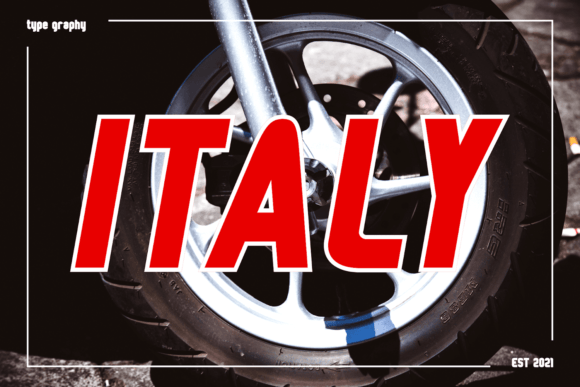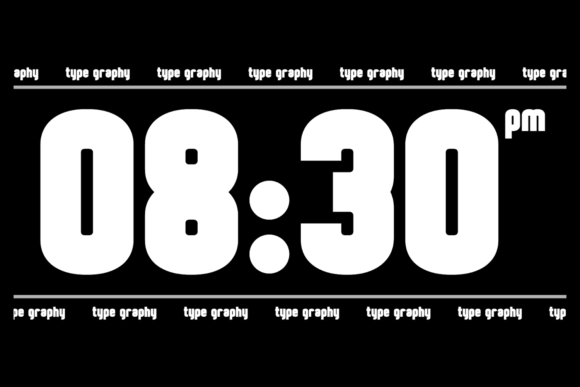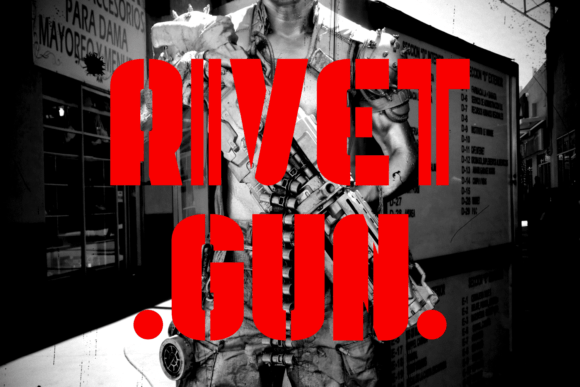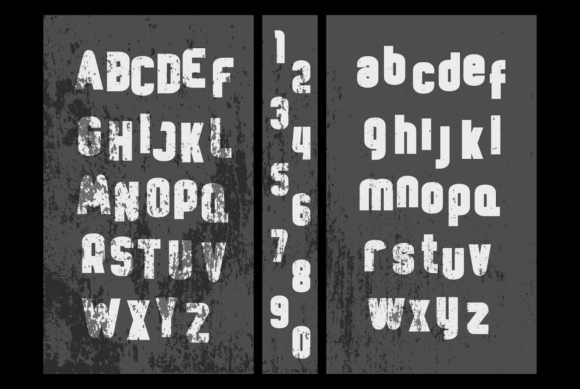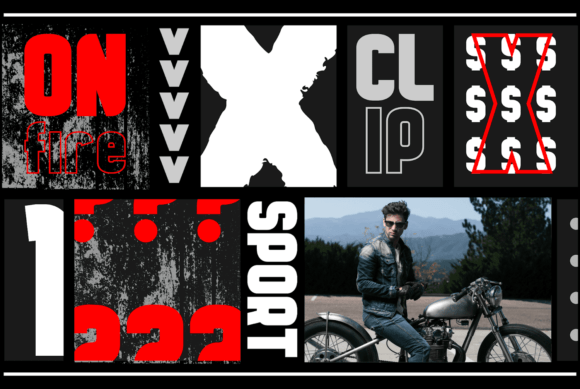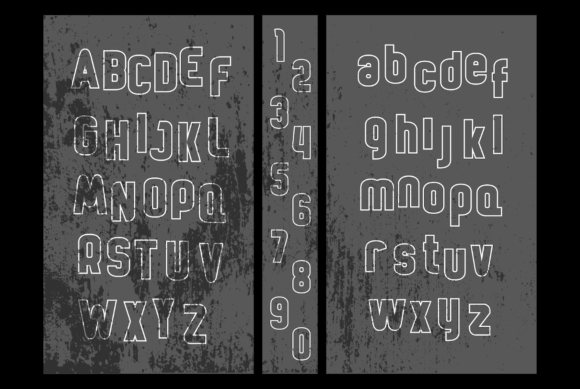
Introducing Detroit Font: The Modern and Bold Display Font
Are you looking for a font that can add a touch of modernity and boldness to your designs? Look no further than the Detroit Font. This trendy and stylish font is perfect for designers and crafters who want to elevate their creations and make them stand out from the crowd.
What is Detroit Font?
Detroit Font is a modern and bold display font that is designed to make a statement. Its sleek and stylish design makes it perfect for a variety of design projects, from logos and branding to posters and social media graphics. The font is characterized by its clean lines, bold shapes, and edgy feel, giving it a unique and contemporary look.
Key Features of Detroit Font
- Modern and Bold Design: The Detroit Font features a modern and bold design that is perfect for making a statement.
- Trendy and Stylish: The font’s trendy and stylish design makes it perfect for designers and crafters who want to add a touch of sophistication to their creations.
- Clean Lines and Shapes: The font features clean lines and shapes, giving it a sleek and contemporary look.
- Edgy Feel: The font’s edgy feel makes it perfect for designs that require a bold and daring look.
- Highly Versatile: The Detroit Font is highly versatile and can be used for a variety of design projects, from logos and branding to posters and social media graphics.
Why Use Detroit Font?
There are many reasons why designers and crafters should consider using the Detroit Font in their designs. Here are a few:
- Add a Touch of Modernity: The Detroit Font can add a touch of modernity to your designs, making them look fresh and contemporary.
- Make a Statement: The font’s bold and edgy design makes it perfect for making a statement and grabbing the attention of your audience.
- Elevate Your Creations: The Detroit Font can elevate your creations and make them stand out from the crowd.
- Easy to Read: Despite its bold design, the font is easy to read, making it perfect for designs that require a clear and concise message.
How to Use Detroit Font?
- Use it as a Display Font: The Detroit Font is perfect for use as a display font, making it ideal for headings and titles.
- Pair it with Other Fonts: The font can be paired with other fonts to create a unique and interesting design.
- Experiment with Different Sizes: The font can be used at different sizes, making it perfect for designs that require a bold and eye-catching look.
| Font Name | Detroit Font |
| Author | Type Graphy |
In conclusion, the Detroit Font is a modern and bold display font that is perfect for designers and crafters who want to add a touch of sophistication and elegance to their designs. Its trendy and stylish design makes it highly versatile and easy to use, making it perfect for a variety of design projects. Whether you’re looking to make a statement, add a touch of modernity, or simply elevate your creations, the Detroit Font is the perfect choice.